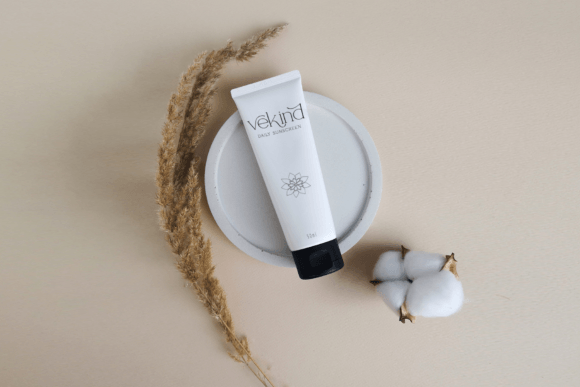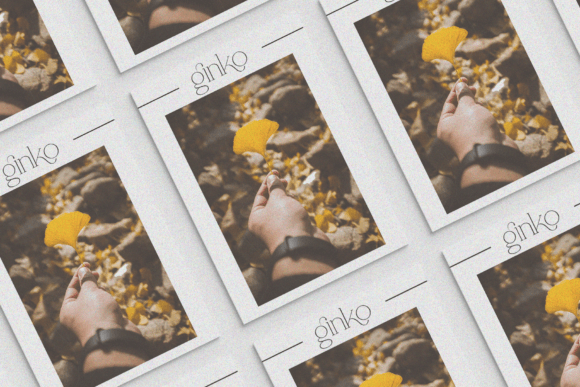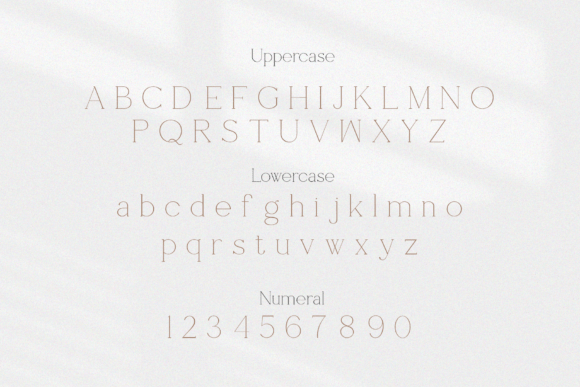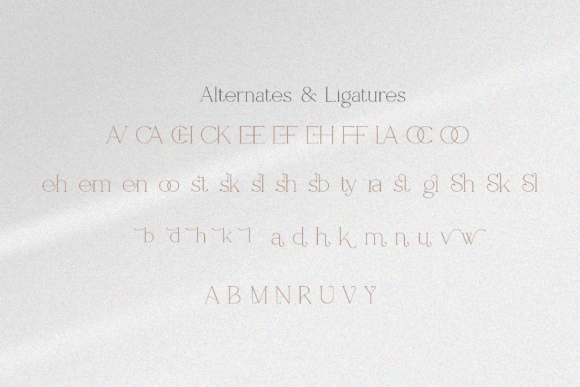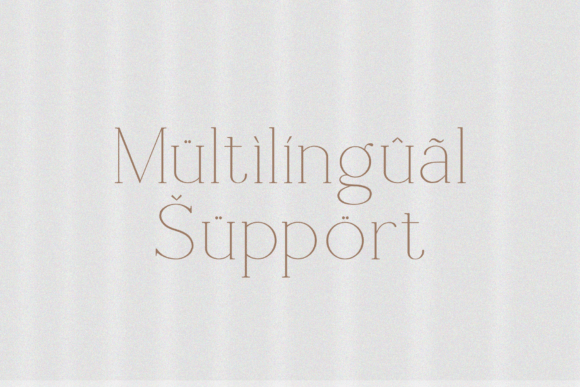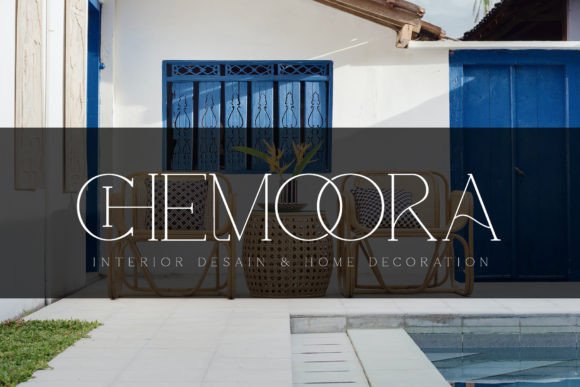
Introduction to Shoogie Font
Have you ever found yourself stuck in front of your computer screen, desperately searching for the perfect font to elevate your creative project? You’ve browsed through countless options, but nothing seems to capture the essence of your vision. Well, we’re here to tell you that your search may finally be over. Introducing the Shoogie Font, a stunning serif font that’s about to revolutionize the way you approach your design work.
This elegant and stylish font is a treasure trove for designers, offering a unique blend of sophistication and versatility. Whether you’re crafting an invitation card, designing a company logo, or creating a movie title, the Shoogie Font is the perfect design resource to bring your ideas to life. And the best part? It’s available for free download, complete with a transparent background, making it a high-quality addition to any creative project.
- Unique, hand-drawn style with a transparent background, allowing for seamless integration into various design elements.
Honest Review: Shoogie Font
I recently stumbled upon the Shoogie Font while searching for a unique design resource for my creative project. I must say, I was quite impressed with its potential.
- ⚠️ The font’s unique style may not be suitable for all design projects, particularly those requiring a more traditional or formal tone
Overall, I’d give the Shoogie Font 4 out of 5 stars. While it’s a great addition to any designer’s toolkit, it’s essential to consider its limitations before incorporating it into your next creative project.
The Shoogie Font is perfect for creative projects that require a unique and eye-catching design. Use it for social media graphics, logos, or even business cards. With its high-quality design and transparent background feature, the Shoogie Font is a valuable design resource for any project.